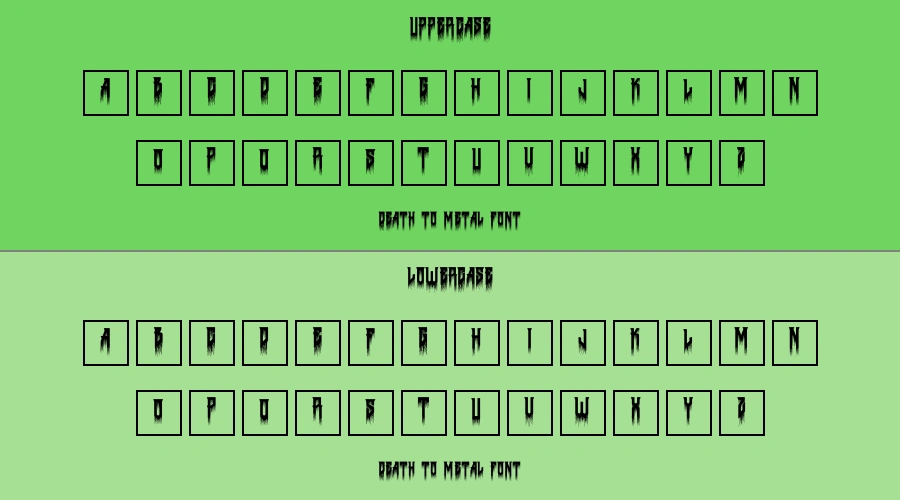
About Death to Metal Font
Death to Metal Font embodies typographic excellence through its masterful combination of exaggerated serifs and consistency. Created for product naming, this typeface delivers exceptional durability and user trust across all applications. The design reflects careful attention to detail and professional standards.
Advanced capabilities include distinctive modular forms and versatile lining figures, giving designers creative control. When used in headlines, Death to Metal Font exhibits remarkable color consistency. The harmonious balance between counter size and creative expression sets this typeface apart.